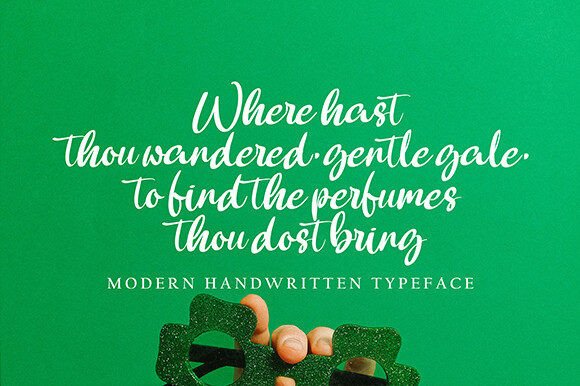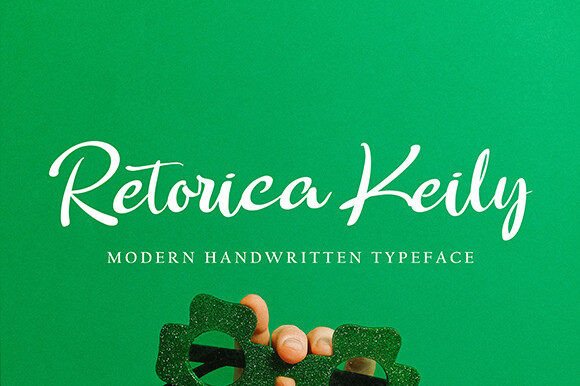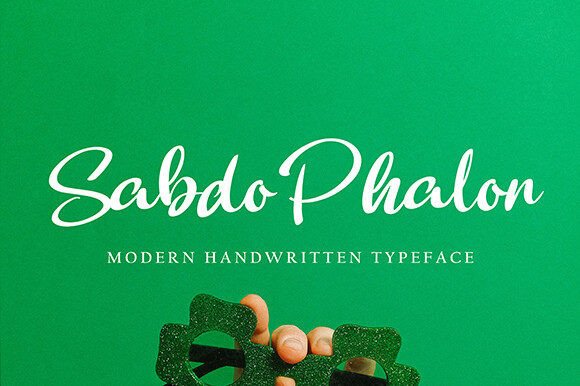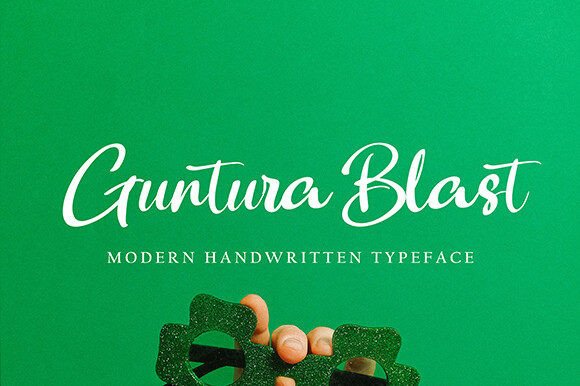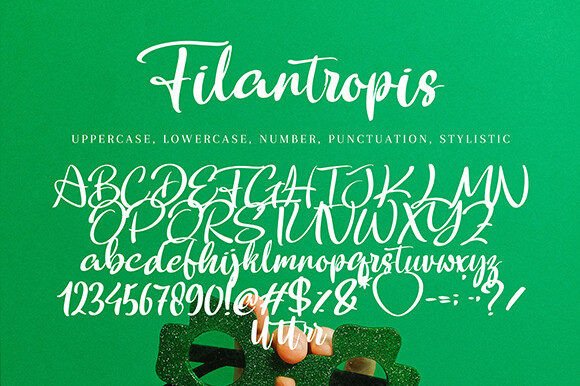
Introducing Filantropis Font: Elevate Your Designs with Elegance and Sophistication
In the world of typography, few fonts manage to capture the essence of elegance and sophistication as beautifully as Filantropis. This stunning script font is a game-changer for designers and crafters looking to add a touch of refinement to their projects. Whether you’re working on wedding invitations, thank you cards, quotes, greeting cards, logos, business cards, or any other design that requires a handwritten touch, Filantropis is the perfect choice.
What Makes Filantropis Stand Out?
Filantropis is more than just a font; it’s an experience. Its stylish and incredibly elegant design makes it a versatile tool for any creative project. The font’s unique characteristics include:
- Fluid Connections: Filantropis features smooth, flowing connections between letters, giving it a natural, handwritten feel that’s perfect for creating beautiful, eye-catching designs.
- Elegant Ligatures: The font includes elegant ligatures that add an extra layer of sophistication to your text, making it ideal for high-end projects.
- Versatile and Readable: Despite its elegant appearance, Filantropis remains highly readable, making it suitable for both large and small text sizes.
Filantropis’s versatility is one of its most compelling features. Here are some of the many ways you can use this beautiful font:
- Wedding Invitations: Add a touch of romance and sophistication to your wedding invitations, save-the-dates, and thank you cards.
- Quotes and Posters: Create stunning quote posters, social media graphics, and inspirational wall art with Filantropis.
- Greeting Cards: Whether it’s a birthday, anniversary, or holiday card, Filantropis adds a personal, handwritten touch that makes your cards stand out.
- Logos and Branding: Use Filantropis to create elegant logos, business cards, and letterheads that reflect your brand’s sophisticated personality.
Why Choose Filantropis?
With so many fonts available, why should you choose Filantropis for your next project? Here are a few compelling reasons:
- Unique and Memorable: Filantropis’s distinctive style ensures that your designs will stand out from the crowd and leave a lasting impression.
- Time-Saving: The font’s comprehensive character set and ligatures save you time and effort, allowing you to focus on the creative aspects of your project.
- High-Quality: Filantropis is crafted with attention to detail, ensuring that your designs look professional and polished.
Tips for Using Filantropis Effectively
To get the most out of Filantropis, here are some tips to keep in mind:
- Pair with Contrasting Fonts: Combine Filantropis with a clean, sans-serif font to create visual interest and hierarchy in your designs.
- Experiment with Colors: Filantropis looks stunning in a variety of colors, from soft pastels to rich jewel tones. Don’t be afraid to experiment and find the perfect hue for your project.
- Play with Ligatures: Take advantage of Filantropis’s ligatures to add an extra layer of elegance and sophistication to your text.
Filantropis is a stylish and incredibly elegant script font that can elevate any design project. Its versatility, readability, and unique characteristics make it a valuable addition to any designer’s toolkit. Whether you’re working on a wedding invitation, a quote poster, or a business card, Filantropis is the perfect choice for adding a touch of sophistication and elegance. So why wait? Download Filantropis today and take your designs to the next level!